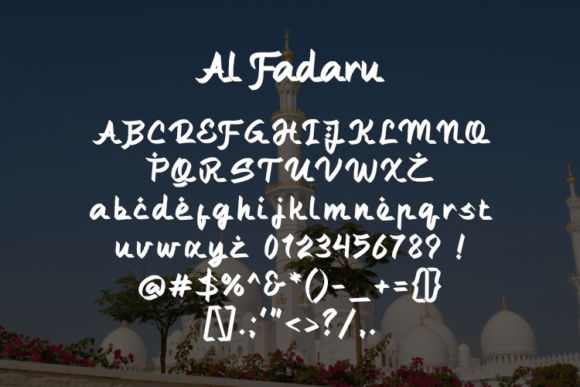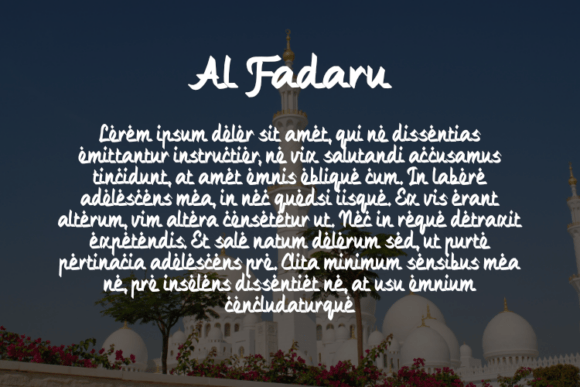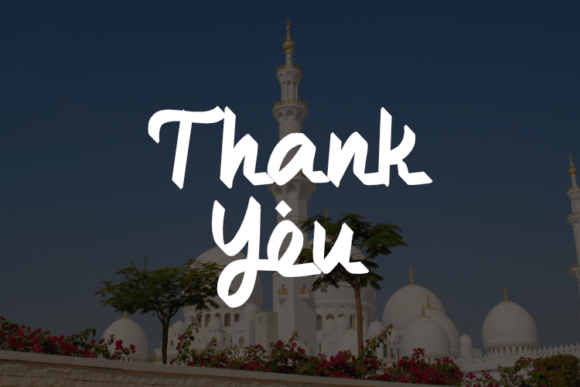
Introducing Al Fadaru Font: The Perfect Choice for Your Design Projects
Are you a designer or crafter looking for a font that can elevate your creative projects? Look no further than Al Fadaru Font. This versatile font is designed to help you create stunning designs that capture attention and convey your message with clarity. In this article, we’ll explore the features and benefits of Al Fadaru Font, and why it’s a perfect choice for a variety of your design projects.
What is Al Fadaru Font?
Al Fadaru Font is a modern, stylish font designed with versatility in mind. Its attractive and easy-to-read look makes it an excellent choice for a wide range of design projects, from trendy apparel and t-shirts to other creative products. Whether you’re a professional designer or a crafter, Al Fadaru Font is an excellent addition to your font collection.
Key Features of Al Fadaru Font
- Versatility: Al Fadaru Font is designed to be versatile, making it suitable for various design projects, including apparel, t-shirts, posters, brochures, and more.
- Attractive and Easy-to-Read: The font features a clean and modern design that is easy to read, ensuring your message comes across clearly and effectively.
- Trendy and Modern: Al Fadaru Font has a trendy and modern look that’s perfect for designs that require a fresh and contemporary feel.
- High-Quality: The font is designed with high-quality in mind, ensuring it looks great in various sizes and resolutions.
Benefits of Using Al Fadaru Font
So, why choose Al Fadaru Font for your design projects? Here are some benefits of using this amazing font:
- Save Time: With Al Fadaru Font, you can create stunning designs quickly and easily, saving you time and effort.
- Enhance Your Designs: The font’s attractive and easy-to-read design will elevate your creations and make them stand out from the crowd.
- Increase Versatility: Al Fadaru Font is suitable for various design projects, allowing you to experiment with different designs and applications.
Al Fadaru Font is an excellent choice for designers and crafters who want to create stunning designs that capture attention. Whether you’re creating:
- T-shirts and apparel
- Brochures and catalogs
- Or any other creative project
Al Fadaru Font is the perfect choice to add a touch of elegance and sophistication to your designs.
In conclusion, Al Fadaru Font is a versatile and stylish font that’s perfect for a variety of design projects. Its attractive and easy-to-read design makes it an excellent choice for designers and crafters who want to create stunning designs that capture attention. With its high-quality design and ease of use, Al Fadaru Font is an excellent addition to your font collection.